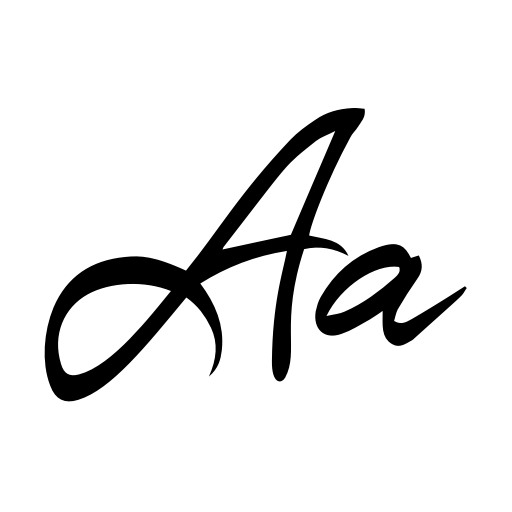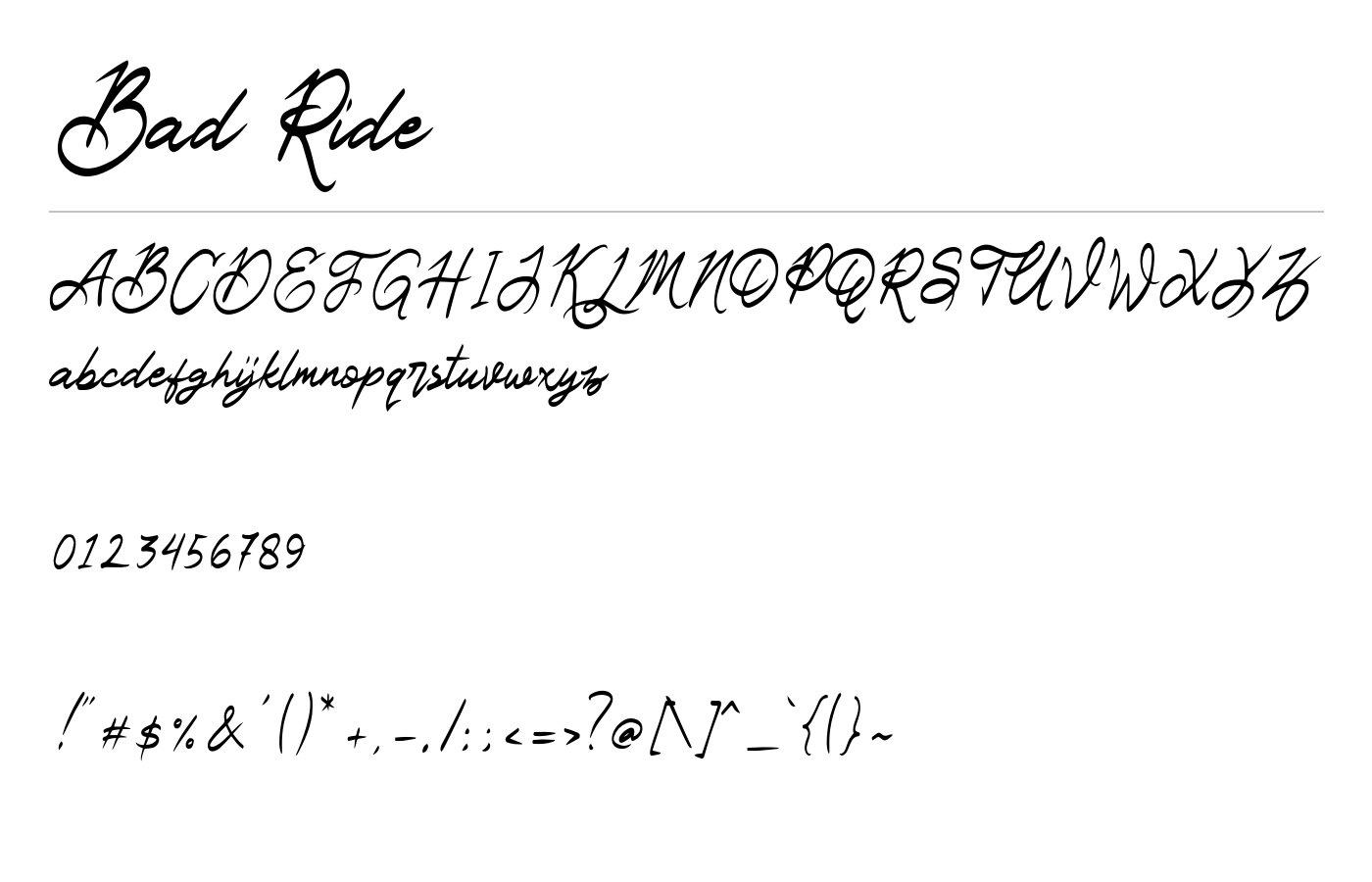
Bad Ride is a lively and elegant script font characterized by its flowing, cursive letterforms with smooth, calligraphic strokes and playful swashes. Its medium weight and slightly condensed style give it a refined yet dynamic feel, making it perfect for creative branding, invitations, and headlines that seek a personal and stylish touch. This font’s unique personality blends sophistication with a casual charm, ideal for fashion, lifestyle, and artistic projects.
Bad Ride Font
About Bad Ride Font